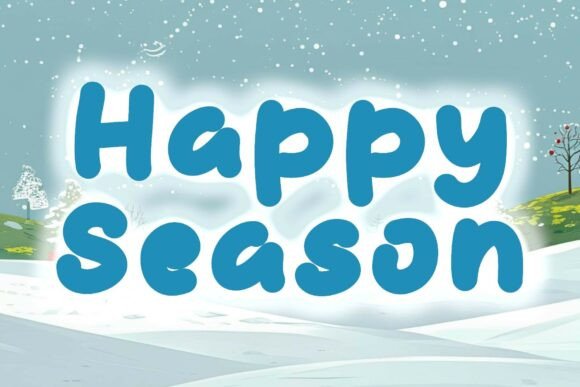
Xmas Funny Font: The Ultimate Guide to Adding Holiday Cheer to Your Designs
Are you looking for a unique and fun font to add some holiday cheer to your designs? Look no further than the Xmas Funny Font! This display font is perfect for creating eye-catching banners, posters, prints, and more. In this article, we’ll dive into the features and benefits of the Xmas Funny Font and explore its various uses.
What is Xmas Funny Font?
The Xmas Funny Font is a unique and fun display font that features uppercase and lowercase letters, numerals, punctuations, and multilingual support. Its playful and festive design makes it perfect for the holiday season, but it’s also versatile enough to be used for other celebrations and occasions throughout the year.
Key Features of Xmas Funny Font
- Uppercase and Lowercase Letters: The Xmas Funny Font includes both uppercase and lowercase letters, making it easy to create a variety of designs.
- Numerals and Punctuations: The font also includes numerals and punctuations, allowing you to create complete and cohesive designs.
- Multilingual Support: With multilingual support, you can use the Xmas Funny Font to create designs in multiple languages.
Uses for Xmas Funny Font
The Xmas Funny Font is a versatile font that can be used for a wide range of design projects. Here are some ideas to get you started:
- Banners and Posters: Create eye-catching banners and posters for holidays, events, and promotions.
- Prints and Branding: Use the Xmas Funny Font to add a playful touch to your prints and branding materials.
- Christmas and Halloween: The Xmas Funny Font is perfect for creating festive designs for Christmas, Halloween, and other holidays.
- Comics and Magazines: Add a playful touch to your comics, magazines, and book titles with the Xmas Funny Font.
- Logos and Stickers: Use the Xmas Funny Font to create fun and playful logos and stickers.
- Valentine’s Day and Other Celebrations: The Xmas Funny Font is not just for Christmas and Halloween – it’s also perfect for Valentine’s Day, fall, autumn, spring, summer, and more.
Benefits of Using Xmas Funny Font
So why choose the Xmas Funny Font for your designs? Here are just a few benefits:
- Unique and Fun: The Xmas Funny Font is a one-of-a-kind font that adds a playful touch to your designs.
- Versatile: The font is versatile enough to be used for a wide range of design projects and occasions.
Tips for Using Xmas Funny Font
Here are a few tips for getting the most out of the Xmas Funny Font:
- Experiment with Colors: The Xmas Funny Font looks great in a variety of colors, so don’t be afraid to experiment and find the perfect hue for your design.
- Pair with Other Fonts: Try pairing the Xmas Funny Font with other fonts to create a unique and eye-catching design.
- Use for Headlines and Titles: The Xmas Funny Font is perfect for headlines and titles, but you can also use it for body text and other design elements.
The Xmas Funny Font is a unique and fun display font that’s perfect for adding holiday cheer to your designs. With its uppercase and lowercase letters, numerals, punctuations, and multilingual support, it’s versatile enough to be used for a wide range of design projects. Whether you’re creating banners, posters, prints, or more, the Xmas Funny Font is sure to bring a smile to your audience’s face.
- What is the Xmas Funny Font? The Xmas Funny Font is a unique and fun display font that features uppercase and lowercase letters, numerals, punctuations, and multilingual support.
- What is the Xmas Funny Font used for? The Xmas Funny Font is perfect for creating eye-catching banners, posters, prints, and more for holidays, events, and promotions.